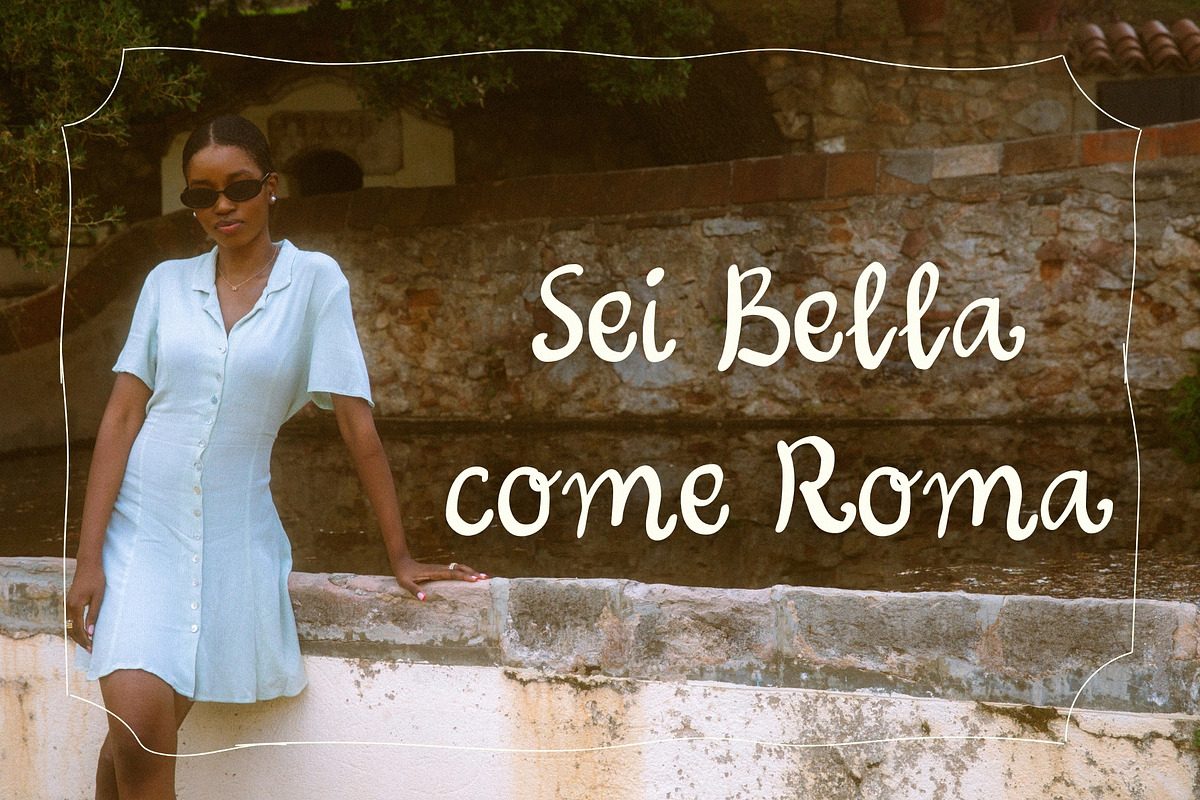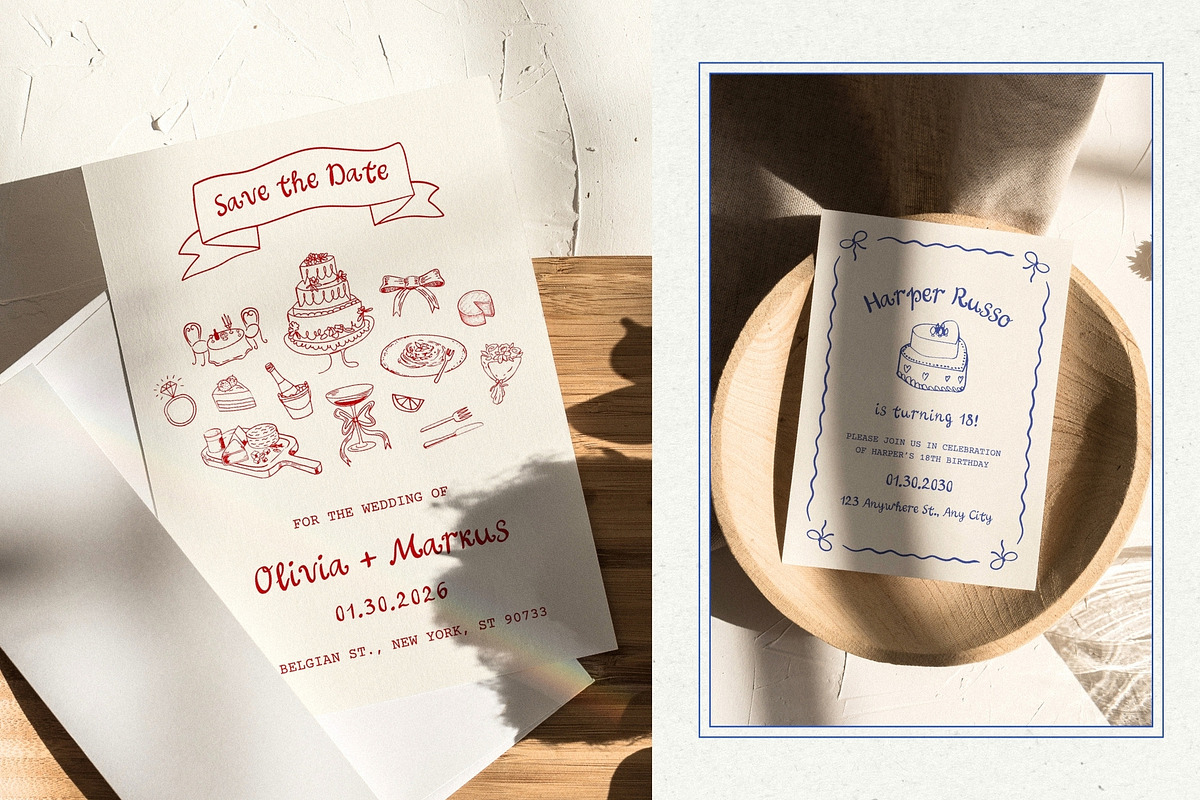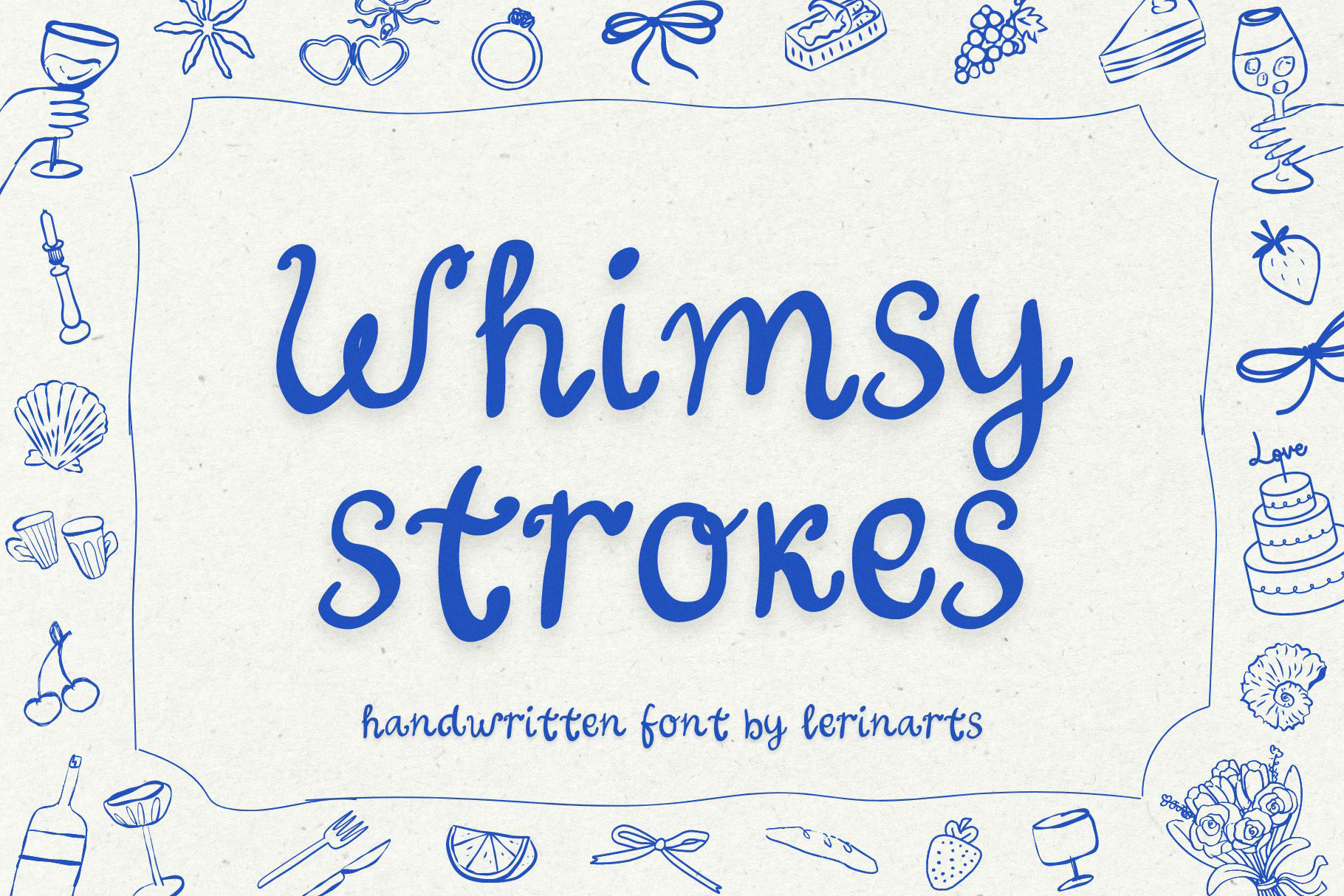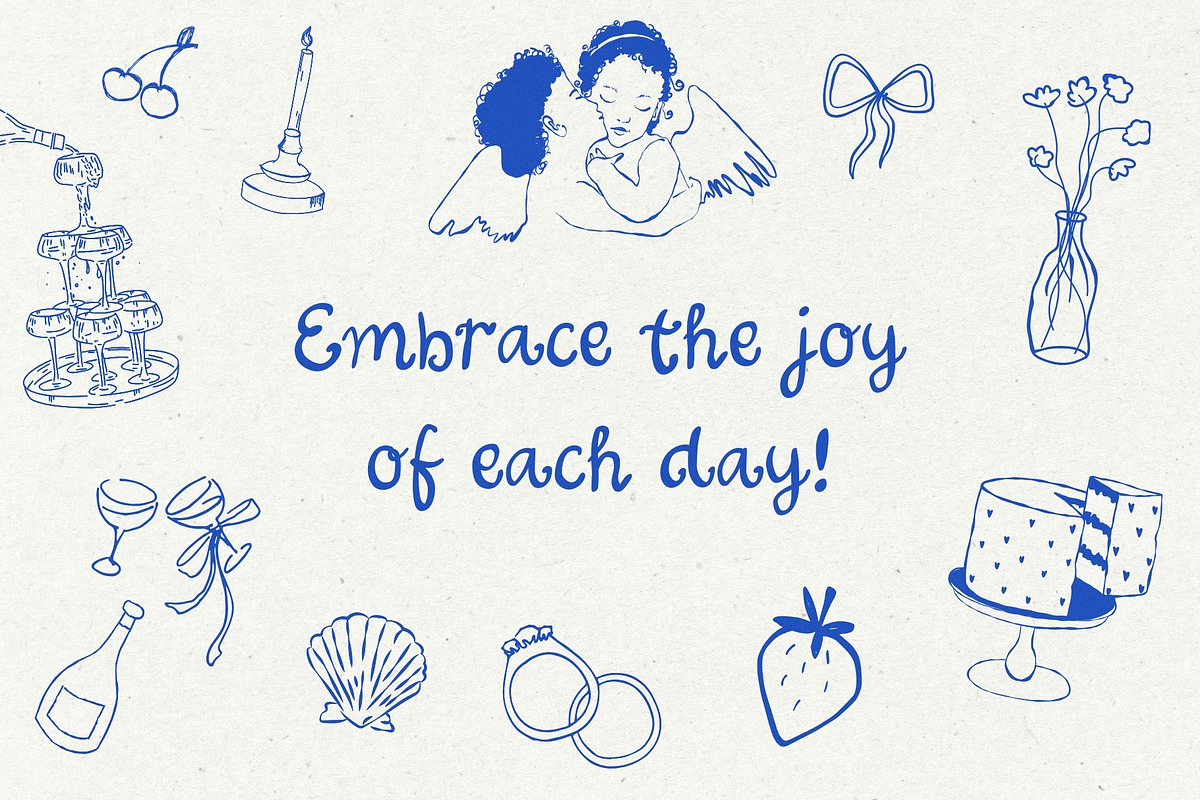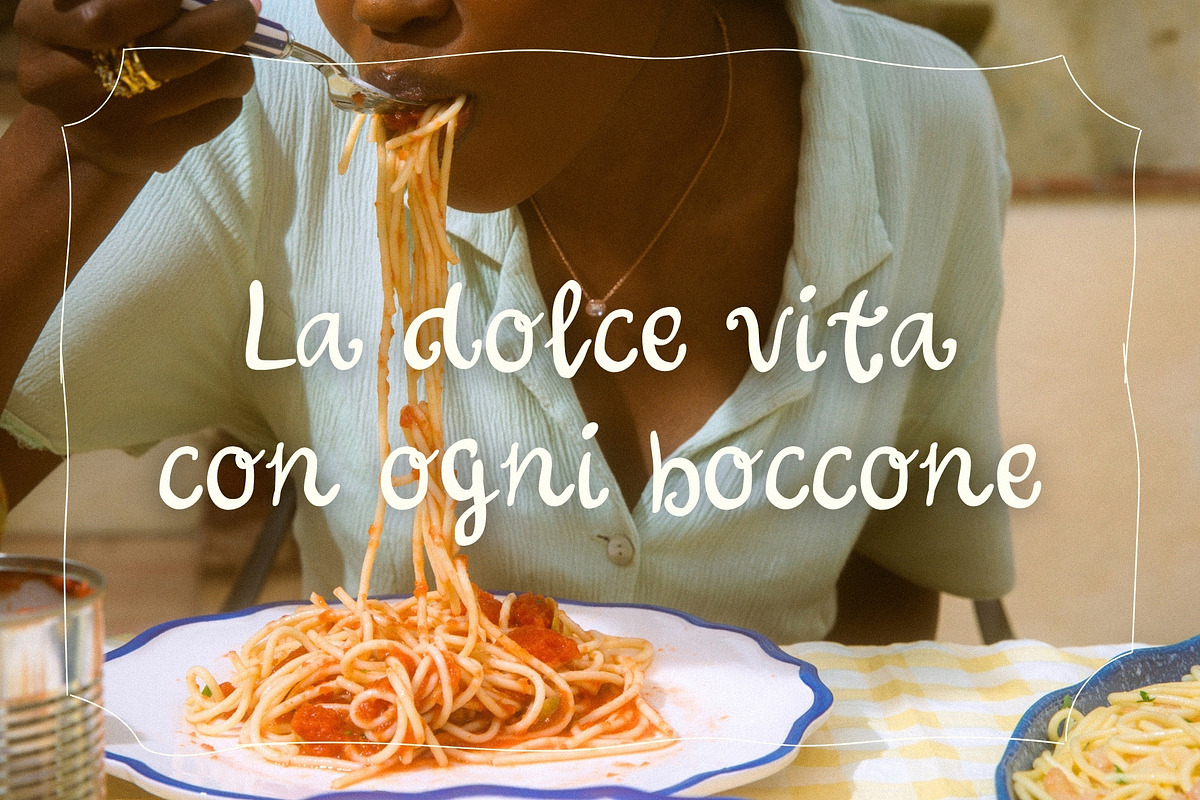
Whimsy Stroke: Cute Handwritten Font
Whimsy Strokes is a delightful hand-drawn calligraphy font that brings a playful yet elegant touch to your designs. With its carefree and whimsical lines, this font is perfect for adding a personal and joyful vibe to your projects.
Ideal for a wide range of creative applications, Whimsy Strokes excels in:
♥ Event Posters: Make your concert flyers, festival banners, and party announcements stand out with a charming handcrafted feel.
♥ Wedding Invitations: Add a touch of elegance and whimsy to save-the-date cards, invitations, menus, and thank you notes.
♥ Social Media Graphics: Enhance your Instagram posts, stories, and Pinterest pins with a unique, eye-catching style.
♥ Greeting Cards: Perfect for birthdays, holidays, and special occasions, Whimsy Strokes makes every message feel heartfelt and special.
♥ Branding Materials: Create memorable logos, business cards, and packaging designs that capture the essence of your brand’s personality.
With its irregular, flowing strokes, Whimsy Strokes captures the essence of casual handwritten notes, making your text feel warm and inviting. Embrace the playful and spirited vibe of Whimsy Strokes to infuse your designs with a touch of handcrafted charm.
The font supports a variety of languages, including English, Spanish, French, German, Portuguese, Italian, and others.